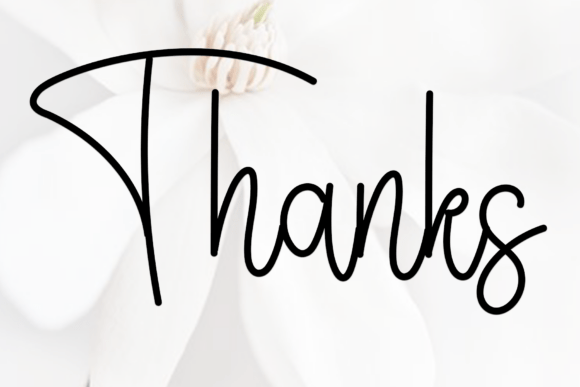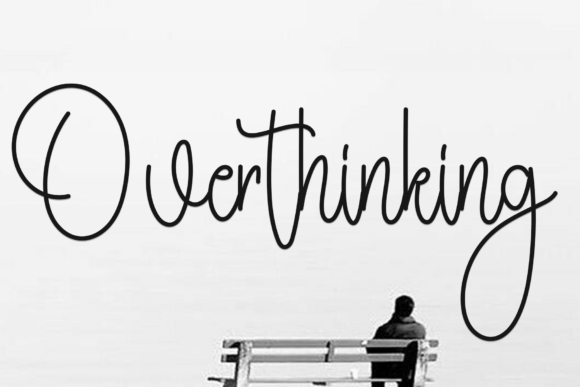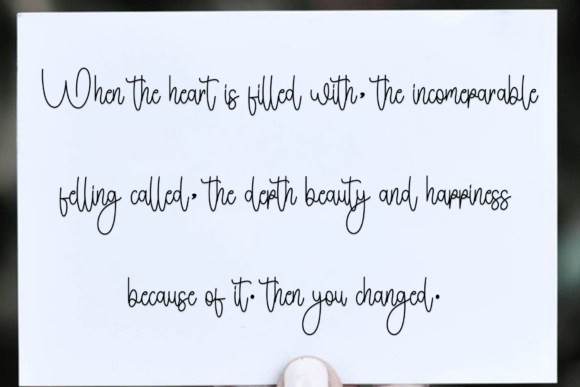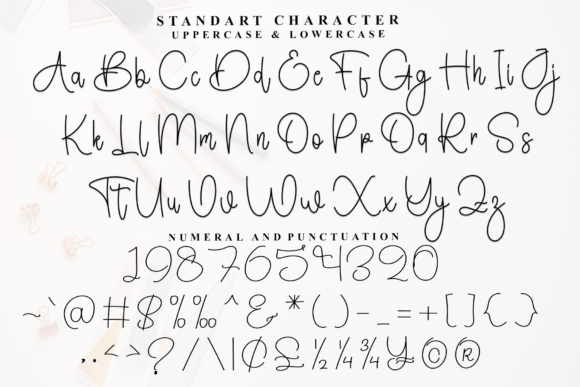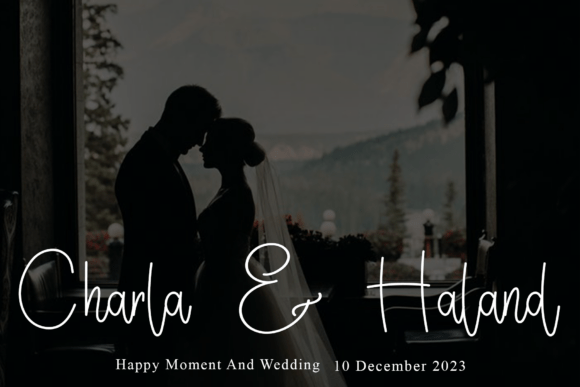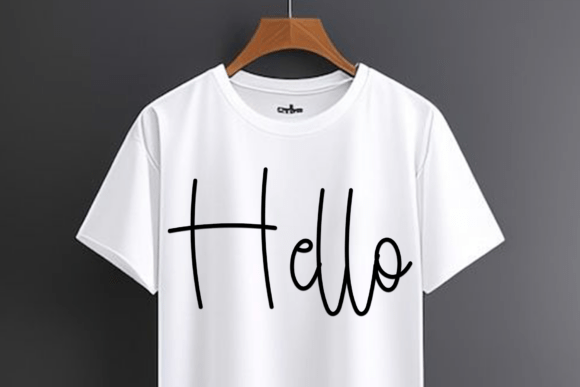
Baby Thick Font: The Perfect Choice for Designers and Crafters
In the world of typography, fonts play a crucial role in making designs stand out. One such font that has gained popularity among designers and crafters is the Baby Thick Font. This beautiful and eye-catching font is designed with a soft, unique touch that sets it apart from other fonts. In this article, we’ll explore the features and benefits of the Baby Thick Font and why it’s a great choice for your design projects.
Unique and Distinctive Strokes
The Baby Thick Font is characterized by its distinctive strokes that give it a special character. The font’s unique design makes it meaningful and versatile for future use. The strokes are soft and rounded, making it perfect for designs that require a touch of warmth and friendliness. Whether you’re working on a project for a children’s brand, a craft project, or a creative work, the Baby Thick Font is sure to make it visually appealing.
Variety of Characters
The Baby Thick Font comes with a wide range of characters, making it perfect for design projects that require a high level of customization. The font includes uppercase and lowercase letters, numbers, and special characters, ensuring that you have everything you need to create stunning designs. The variety of characters also makes it easy to use the font in different contexts, from titles and headings to body text and captions.
Ideal for Design Projects and Crafts
The Baby Thick Font is perfect for design projects, crafts, and other creative works. Its natural font style makes it ideal for a wide range of products, from children’s books and toys to stationery and home decor. The font’s soft and rounded strokes make it easy to read and visually appealing, making it perfect for designs that require a touch of warmth and friendliness.
Enhance Your Designs
The Baby Thick Font is designed to enhance your designs and make them appealing to a wide range of audiences. Whether you’re working on a project for a children’s brand or a craft project, the font’s unique and distinctive strokes are sure to make it stand out. The font’s versatility and compatibility make it easy to use in different contexts, ensuring that your designs look great in any application.
Perfect for Artistic and Creative Fields
The Baby Thick Font is a great choice for designers and crafters in artistic and creative fields. The font’s unique design and versatility make it perfect for a wide range of projects, from graphic design and illustration to crafting and DIY projects. The font’s soft and rounded strokes make it easy to read and visually appealing, making it perfect for designs that require a touch of warmth and friendliness.
In conclusion, the Baby Thick Font is a beautiful and eye-catching font that’s perfect for designers and crafters. Its unique and distinctive strokes, variety of characters, and compatibility with various applications make it a great choice for design projects, crafts, and other creative works. Whether you’re working on a project for a children’s brand, a craft project, or a creative work, the Baby Thick Font is sure to enhance your designs and make them appealing to a wide range of audiences.